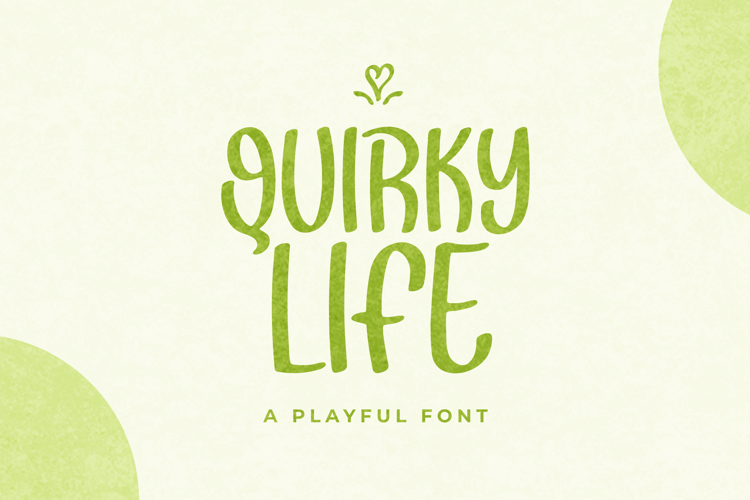
Quirky Life Font
Introducing Quirky Life, a playful and whimsical handwriting font that is sure to add a fun and personal touch to your designs. With its quirky and expressive letterforms, this font captures the joyful and creative spirit of hand-drawn writing. Each character has a unique and playful look, featuring curvy lines that create a sense of movement and spontaneity. Whether you're designing invitations, greeting cards, posters, or any other project that calls for a touch of playfulness, Quirky Life is the perfect choice.